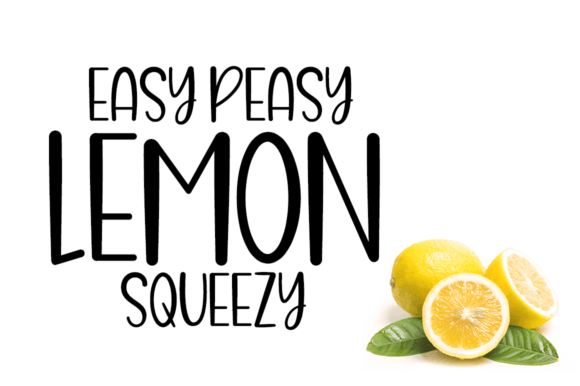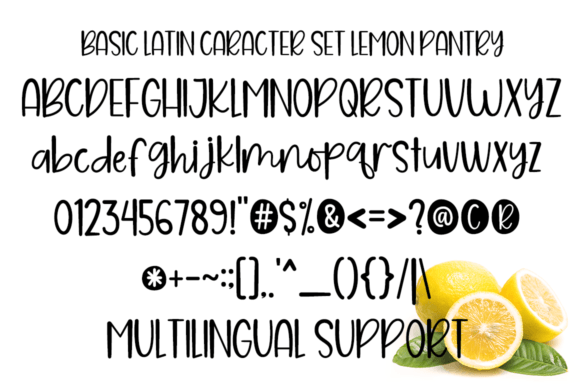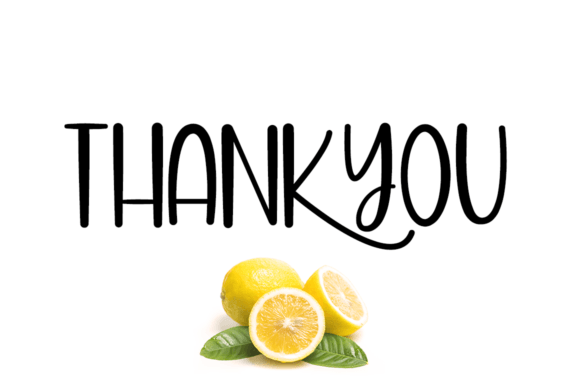
Lemon Pantry is a fun and charming handwritten font. Whimsical and a bit quirky, this font will brighten up each of your designs. Add it confidently to your projects, and you will love the results.